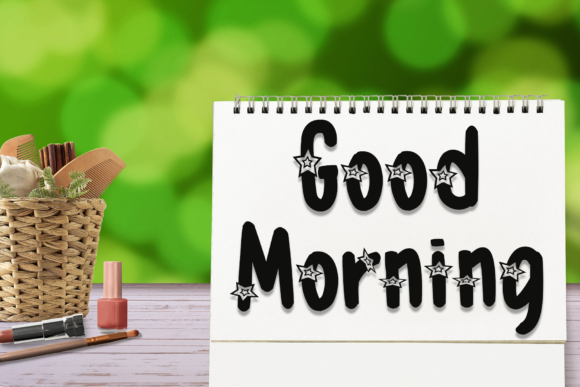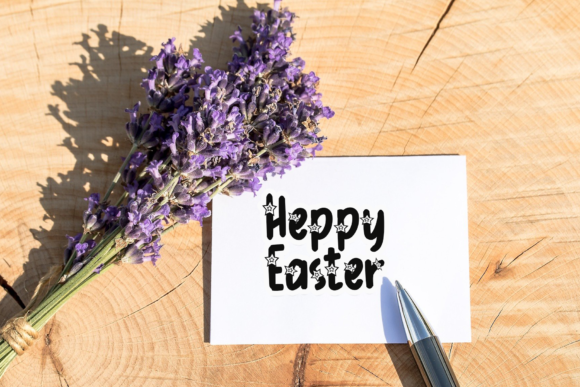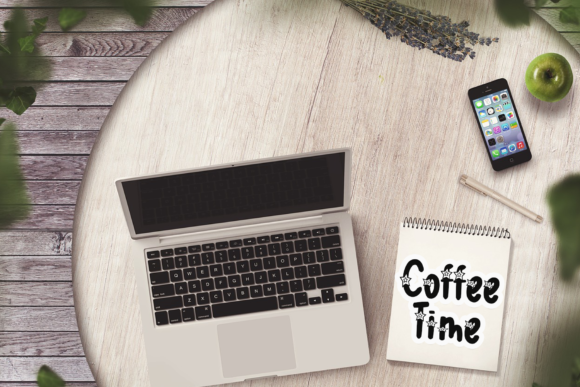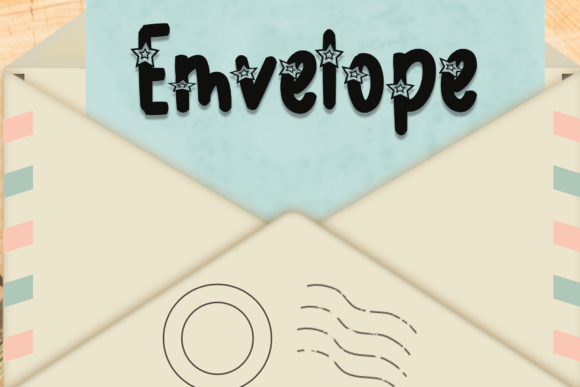
Introducing Family Star Font: The Magical Display Font for Creative Minds
Are you a designer, crafter, or DIY enthusiast looking for a unique and captivating font to elevate your creative projects? Look no further than Family Star Font, a charming display font that adds a touch of magic to any design. This versatile font features little stars as ornaments, making it perfect for a wide range of applications, from festive holiday projects to whimsical branding and marketing materials.
The Unique Charm of Family Star Font
Family Star Font is a one-of-a-kind typeface that stands out from the crowd with its playful and eye-catching design. The font’s distinctive feature is the use of tiny stars as ornaments, which add a whimsical and festive touch to any text. The stars are intricately designed to complement the font’s elegant lines, creating a beautiful and harmonious visual effect.
One of the best things about Family Star Font is its incredible versatility. This font can be used for a wide range of creative projects, including:
- Holiday-themed designs: Add a festive touch to your Christmas, Halloween, or Easter projects with the font’s starry ornaments.
- Branding and marketing materials: Use Family Star Font to create eye-catching logos, posters, and social media graphics that will make your brand shine.
- DIY crafts: Add a personal touch to your handmade crafts, such as scrapbooking, card making, or woodworking projects.
- Wedding and event planning: Create beautiful and unique wedding stationery, invitations, or event signage with this charming font.
Key Features of Family Star Font
Here are some of the key features that make Family Star Font a must-have for designers and crafters:
- Unique and exclusive design: Family Star Font is a one-of-a-kind typeface that will make your designs stand out from the crowd.
- High-quality and scalable: The font is designed to be highly legible and scalable, making it perfect for use in a variety of applications, from small icons to large billboards.
Tips for Using Family Star Font
To get the most out of Family Star Font, here are some tips and tricks to keep in mind:
- Experiment with different colors and textures: The font’s starry ornaments look great in a variety of colors and textures, so don’t be afraid to get creative and try out different combinations.
- Use it sparingly: While Family Star Font is incredibly versatile, it’s best to use it sparingly to avoid overwhelming the design. Use it as an accent font to add a touch of magic to your text.
- Pair it with complementary fonts: Family Star Font pairs well with a variety of fonts, including elegant scripts, bold sans serifs, and playful handwritten fonts.
Family Star Font is a unique and magical display font that is sure to captivate designers, crafters, and DIY enthusiasts alike. With its whimsical starry ornaments and elegant lines, this font is perfect for a wide range of creative projects, from festive holiday designs to whimsical branding and marketing materials. Whether you’re looking to add a touch of magic to your designs or simply want to try out a new and exciting font, Family Star Font is an excellent choice.